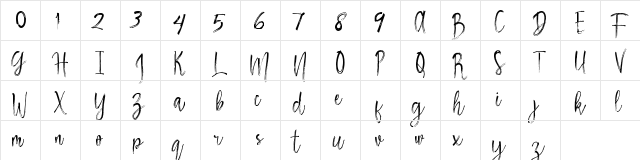
Rosemary Regular
Design Context for Rosemary Typeface
Rosemary offers clean, dependable letterforms without strong stylistic allegiance, making it a practical choice for designers who need flexibility.
Pro Tip: Use Rosemary in both headline and body roles to test its range before committing to a single application.